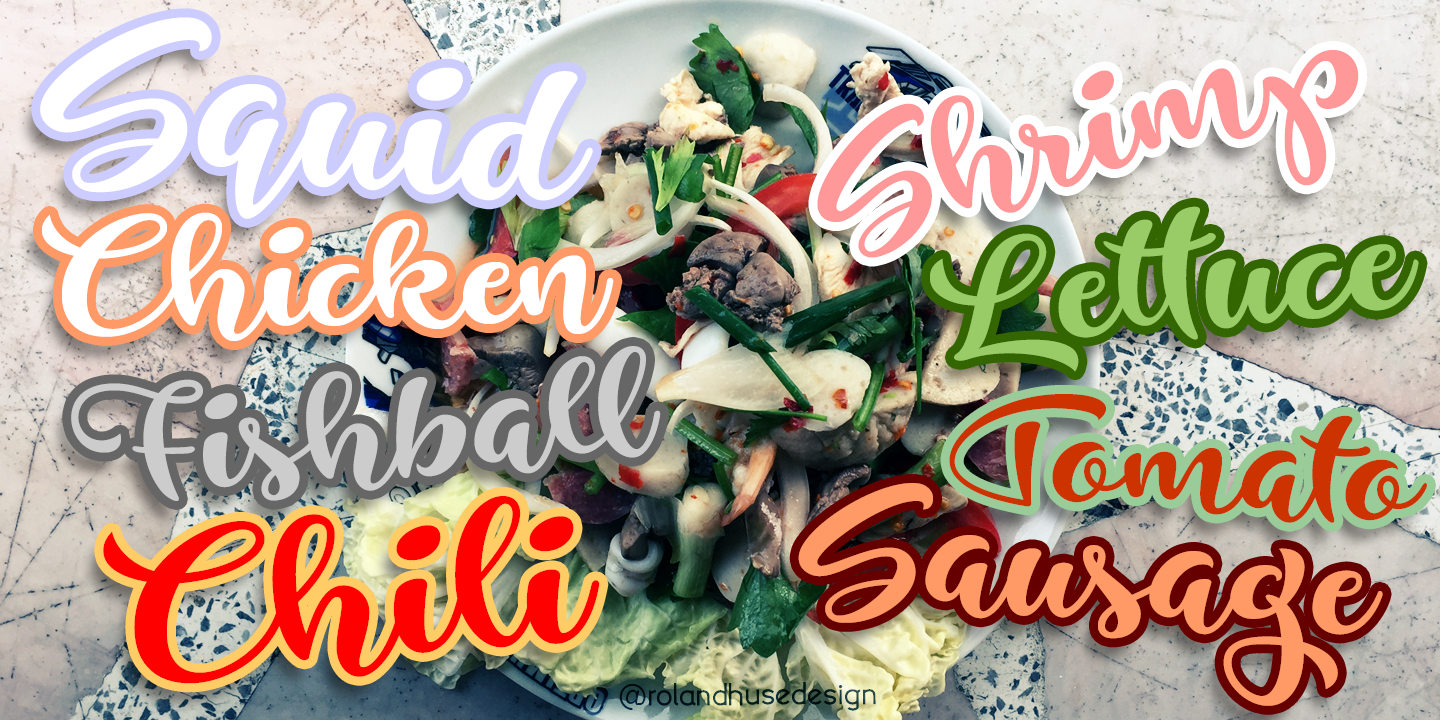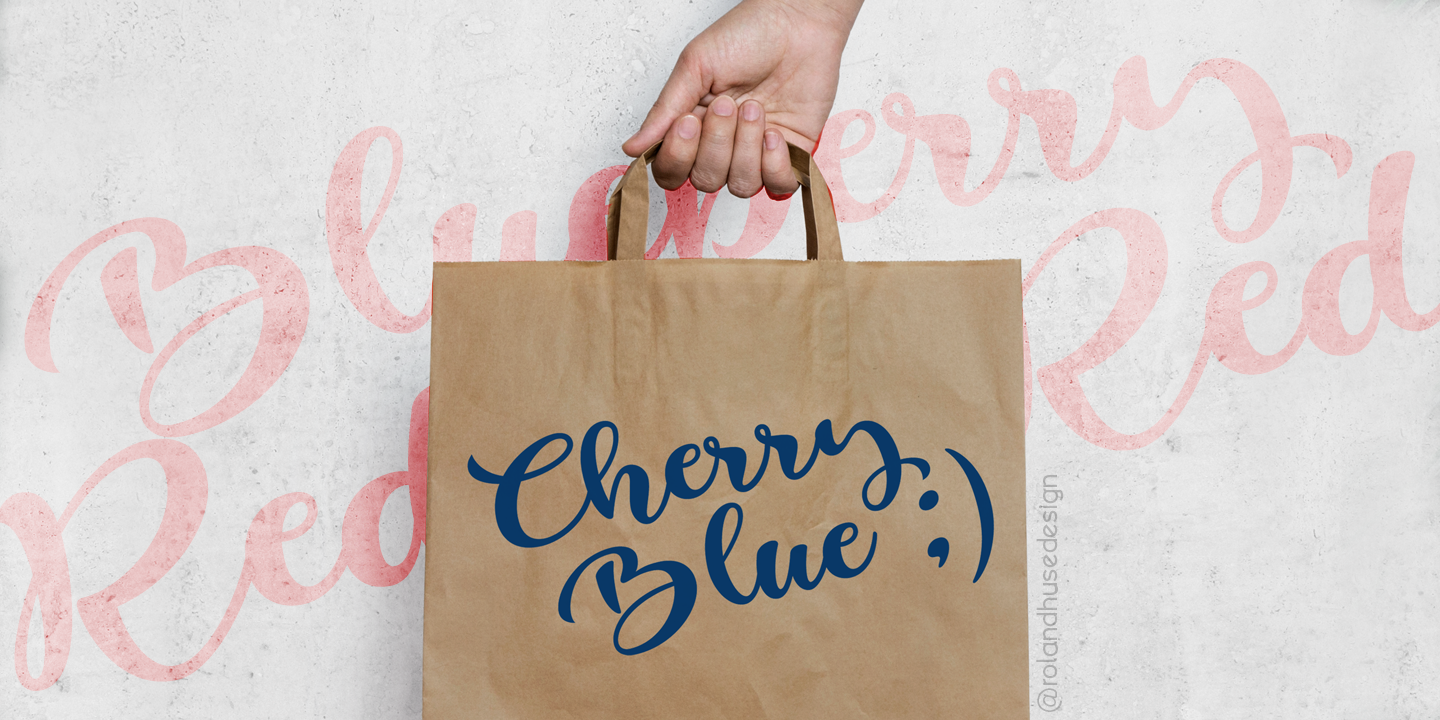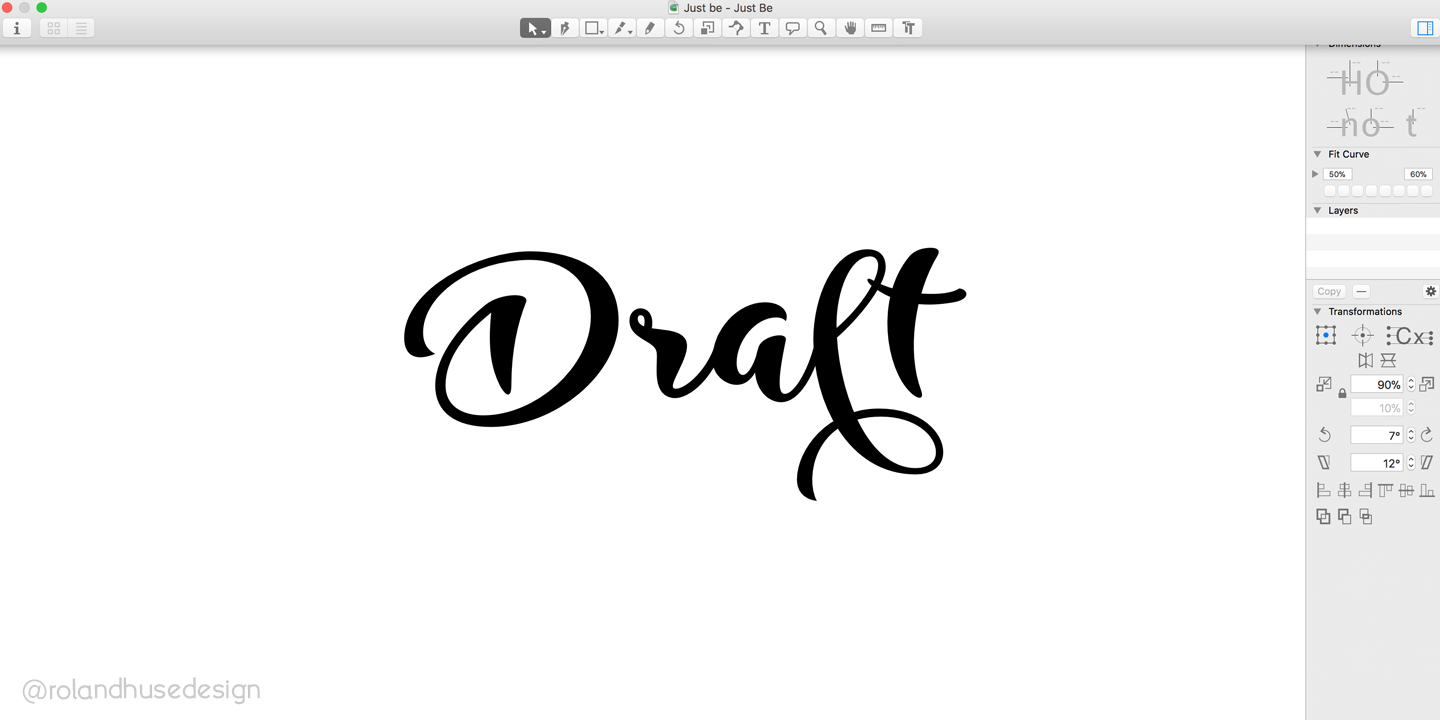
Introduction to Just Be Font
Do you ever find yourself staring at a blank canvas, waiting for inspiration to strike? For many designers, this is a familiar feeling. But what if you had the perfect tool to spark your creativity? Look no further than Just Be Font, a playful and unique brush script that’s sure to elevate your designs.
Just Be Font is more than just a font – it’s a design resource that can add a personal touch to any project. With its transparent background and high-quality design, it’s perfect for creating stunning visuals that stand out from the crowd. Whether you’re working on a romantic wedding invitation, a friendly social media campaign, or a fashionable fashion blog, Just Be Font is the perfect companion to help you bring your vision to life.
Key Features of Just Be Font
- High-quality design resource suitable for creative projects, with a modern and elegant aesthetic.
- Features a transparent background, making it ideal for use on any background or design element.
- Unique characteristic: the font’s subtle texture and organic feel make it perfect for adding a touch of sophistication to any design.
- Includes a comprehensive character set, including uppercase and lowercase letters, numbers, and punctuation marks, making it suitable for a wide range of creative projects.
Honest Review: Just Be Font
As a designer, I’m always on the lookout for high-quality design resources to enhance my creative projects. Recently, I stumbled upon the Just Be Font, and I’m excited to share my honest review with you.
- Clean and modern design aesthetic
- Transparent background, making it easy to use on any background
- High quality, with clear and crisp lettering
Overall, I’m impressed with the Just Be Font. It’s a great addition to my design arsenal, and I’ve already used it on several projects. The clean and modern design aesthetic is perfect for creating a professional look, and the transparent background makes it easy to customize to my needs.
- Only available in a few font styles, so it may not be suitable for projects that require a wide range of font options
- Not ideal for use on small text sizes, as the font can appear pixelated
Overall, I would highly recommend the Just Be Font to any designer looking for a high-quality, modern font to add to their design resource collection. Just be aware of the limitations, and you’ll be all set for creating stunning designs with this font.
How to Use Just Be Font
Tips for Getting the Most Out of Just Be Font
To get the most out of Just Be Font, experiment with different font sizes, colors, and layering techniques. This will help you unlock its full potential and create stunning designs.
Just Be Font is perfect for:
- Creating eye-catching social media graphics
- Designing high-quality presentations
- Adding a professional touch to documents
Alternatives to Just Be Font
Alex Brush Font is a high-quality, elegant script font suitable for creative projects requiring a touch of sophistication. It features a transparent background, making it ideal for designs with complex backgrounds. This font is perfect for wedding invitations, logos, and branding materials. Compared to Just Be Font, Alex Brush Font has a more refined and classic look, ideal for projects that demand a sense of luxury.
Pacifico Font is a modern script font ideal for design projects that require a relaxed and casual tone. It’s perfect for creative projects like brochures, posters, and social media graphics. This font features a free download option, making it accessible to designers on a budget. Compared to Just Be Font, Pacifico Font has a more laid-back and friendly feel, suitable for projects that require a touch of warmth.
Does Just Be Font have a transparent background?
Yes, Just Be Font has a transparent background, making it ideal for designs that require a seamless integration with other elements. The font’s transparent background also allows for easy layering and compositing in your design applications.